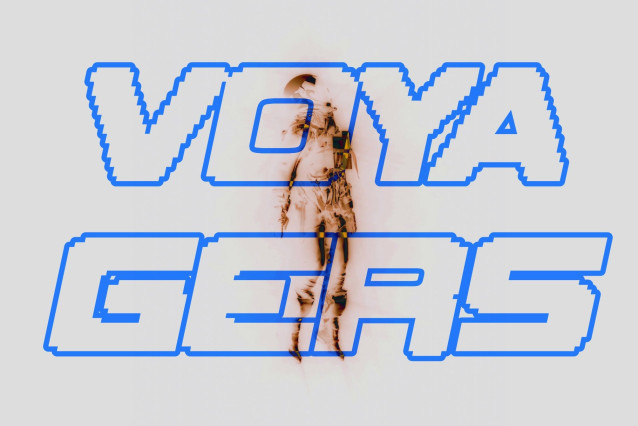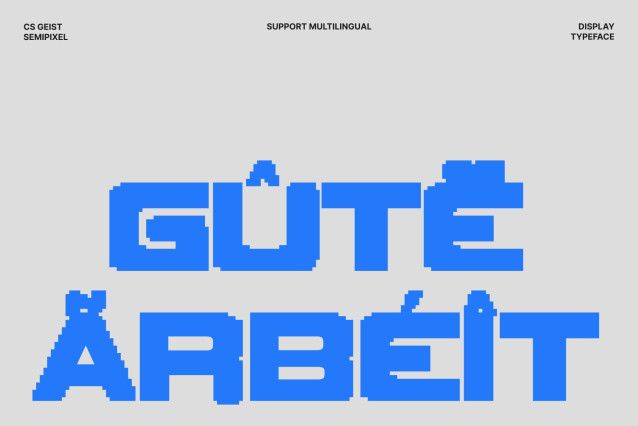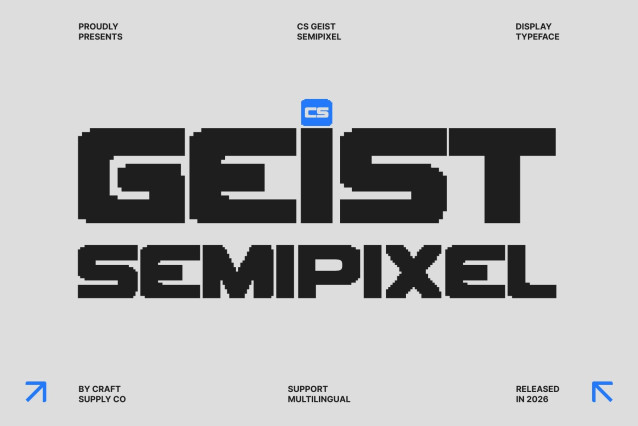
CS Geist Semipixel Font
CS Geist Semipixel – Techno Sans Serif Font: Where Futuristic Power Meets Smooth Pixel Precision
Bold Display Forms for Dynamic Visual Impact
This is a techno-inspired sans serif font designed to create a bold and powerful visual impact. Its strong geometric structure and dynamic modern shapes deliver a futuristic atmosphere filled with energy, confidence, and technological sophistication. Every character feels sharp, expressive, and highly intentional, making the font perfect for eye-catching contemporary design.
Semipixel Style with Smooth Digital Aesthetics
This font offers a smoother and more polished appearance than traditional rigid pixel fonts. The semipixel construction softens the geometry while maintaining its retro-digital identity, creating a sleek balance between futuristic precision and modern readability.